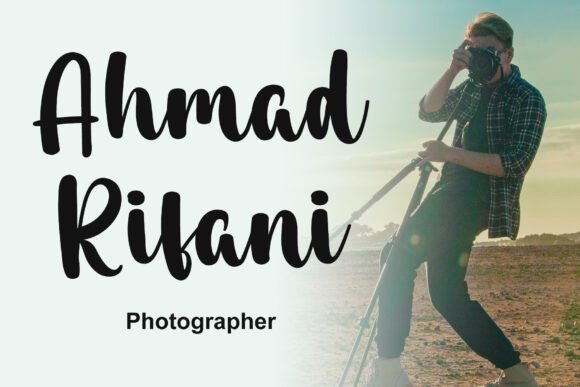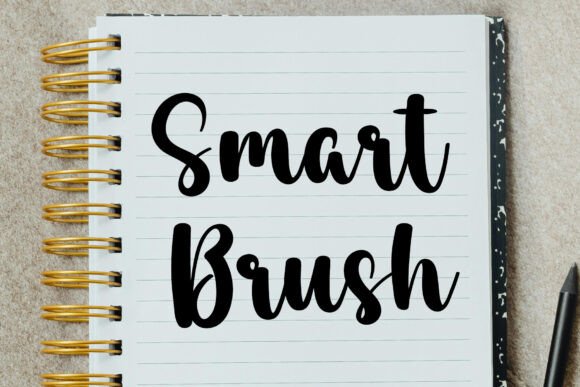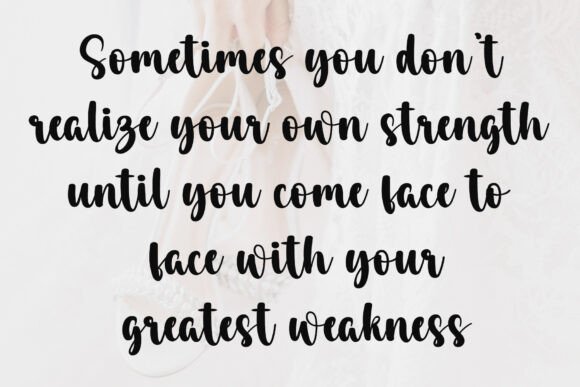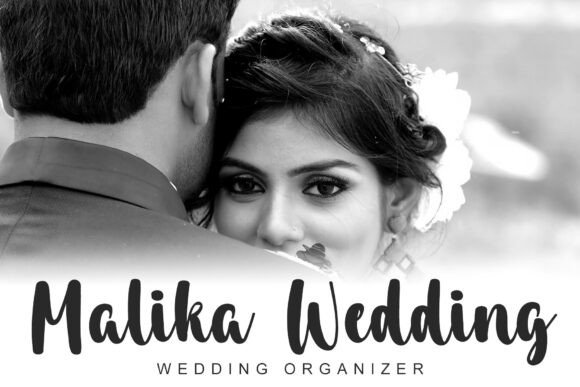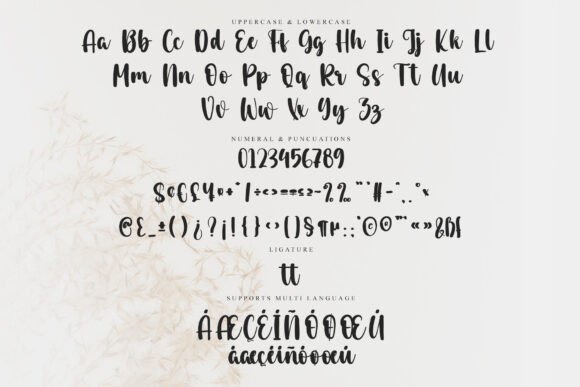
The Power of a Personal Touch: Discovering Authentic Signature Font
Do you remember the thrill of creating your first logo or designing a special invitation? For many of us, the process of bringing our ideas to life is just as rewarding as the final product itself. It’s in these moments that we yearn for a font that captures the essence of our personality, a font that speaks directly to our audience and leaves a lasting impression. This is where the Authentic Signature Font comes in – a beautiful, elegant script font that embodies the perfect blend of fluidity and sophistication.
Designed to evoke the natural beauty of handwriting, the Authentic Signature Font is a versatile tool for designers looking to add a touch of authenticity to their work. Whether you’re creating stunning logos, elegant invitations, or refined stationery, this font is sure to bring a level of sophistication and elegance that’s hard to find elsewhere.
Authentic Signature Font Key Features
- Font Style: A unique, handwritten font designed to mimic a personal signature, ideal for adding a touch of authenticity to documents and designs.
- Unique Characteristics: Features subtle variations in letterforms and strokes, giving it a natural, hand-written feel.
- Language Support: Supports multiple languages, including Latin, Cyrillic, and Greek alphabets.
Authentic Signature Font Review
Overall, I think the Authentic Signature Font has a lot of potential, but it also has some drawbacks. Let’s break it down.
- The font has a unique and distinctive feel that’s perfect for personal or business branding.
- It’s highly customizable, with a wide range of styles and options to choose from.
- The font is well-suited for headings and titles, adding a touch of elegance and sophistication.
- The font can be quite busy and overwhelming when used extensively in body text.
- It may not be the best choice for small text sizes, as the letters can become difficult to read.
- The font requires a good understanding of design principles to use effectively, as it can easily become overwhelming or clashing with other elements.
The Authentic Signature Font is a great choice for designers who want to add a touch of personality and style to their work. However, it’s essential to use it judiciously and balance it with more straightforward fonts to avoid overwhelming the viewer. With some design experience and a keen eye for detail, this font can be a real showstopper.
The Authentic Signature Font is ideal for:
Personal branding, including business cards and letterheads.
Signatures, whether digital or physical.
Invitations, event materials, and other formal documents.
For the best results, use the font in combination with other design elements to create a cohesive look.